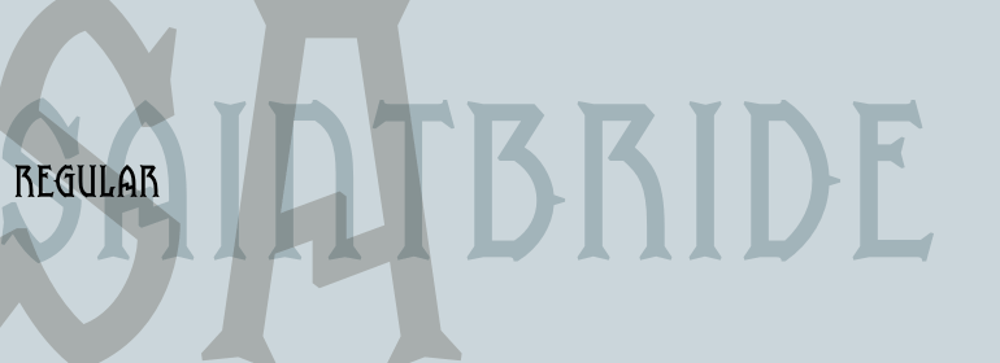
Saintbride
Saintbride font
Saintbride Font Family was designed by Rian Hughes and published by Device. Saintbride contains 1 styles and family package options. Based on gnostic studies of indecipherable Lovecraftian mausoleum inscriptions conducted in hidden colonnaded antechambers, Saintbride has an architectural and stone-carved heritage that makes it suitable for Gothic romances, metal CD covers, biker gang tattoos and wedding invitations.